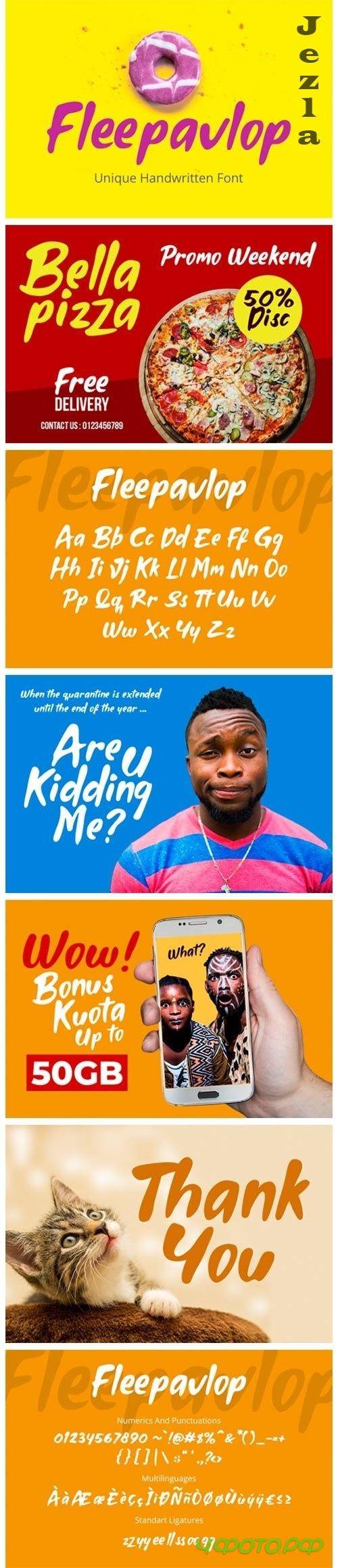
Fleepavlop Font
Fleepavlop is a cute and friendly display font. This enchanting font will turn any creative idea into a true standout. Get creative with its unique playfulness, and use it to brighten up any crafting project!